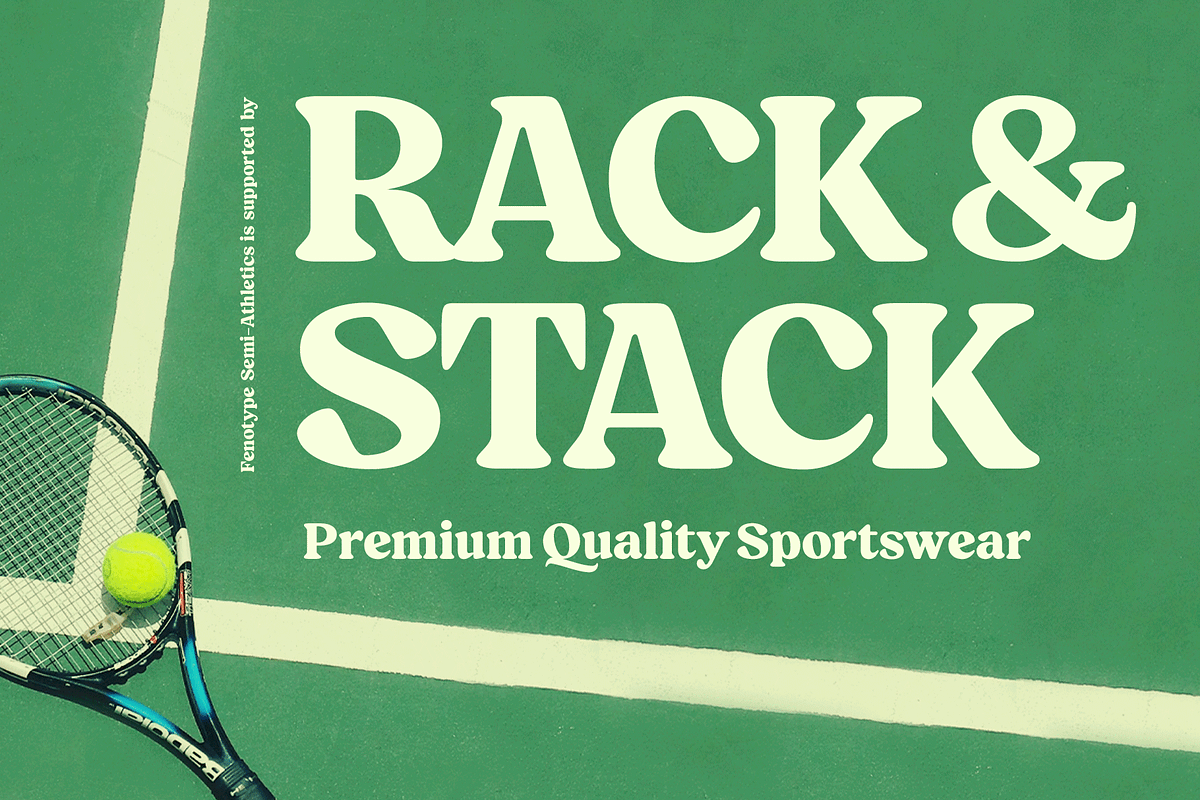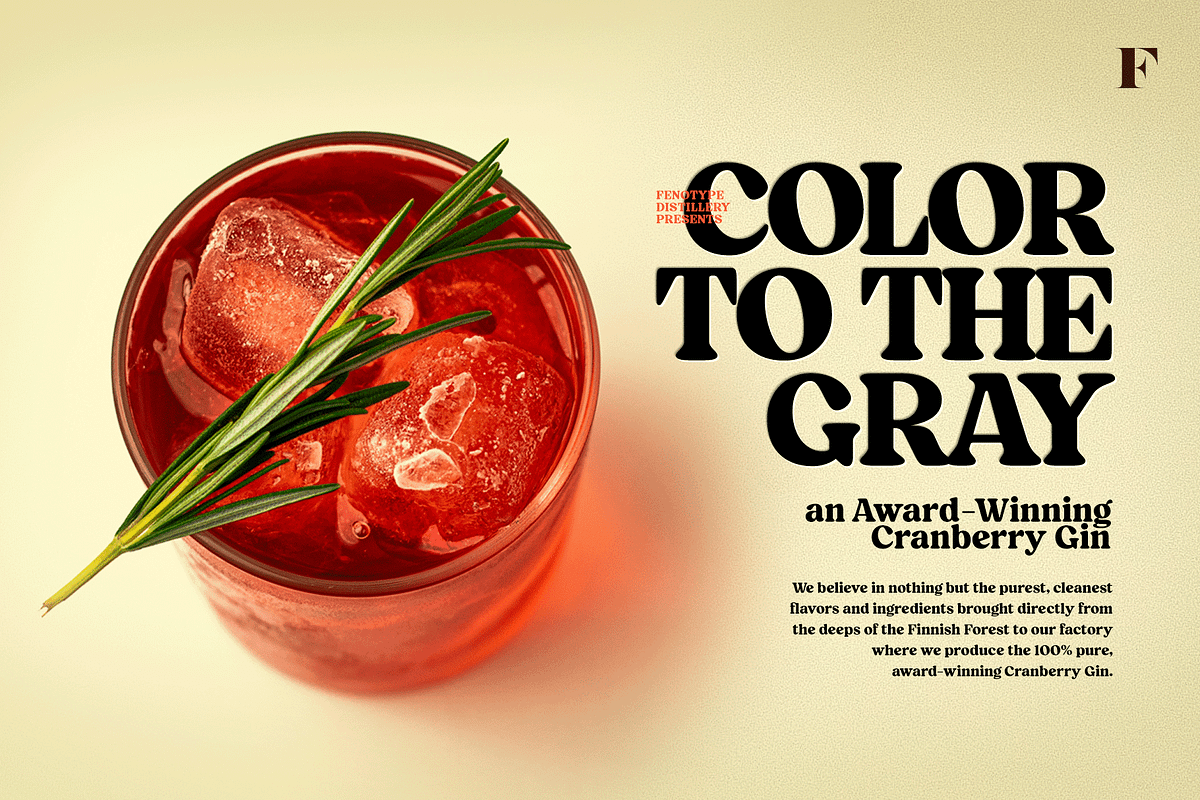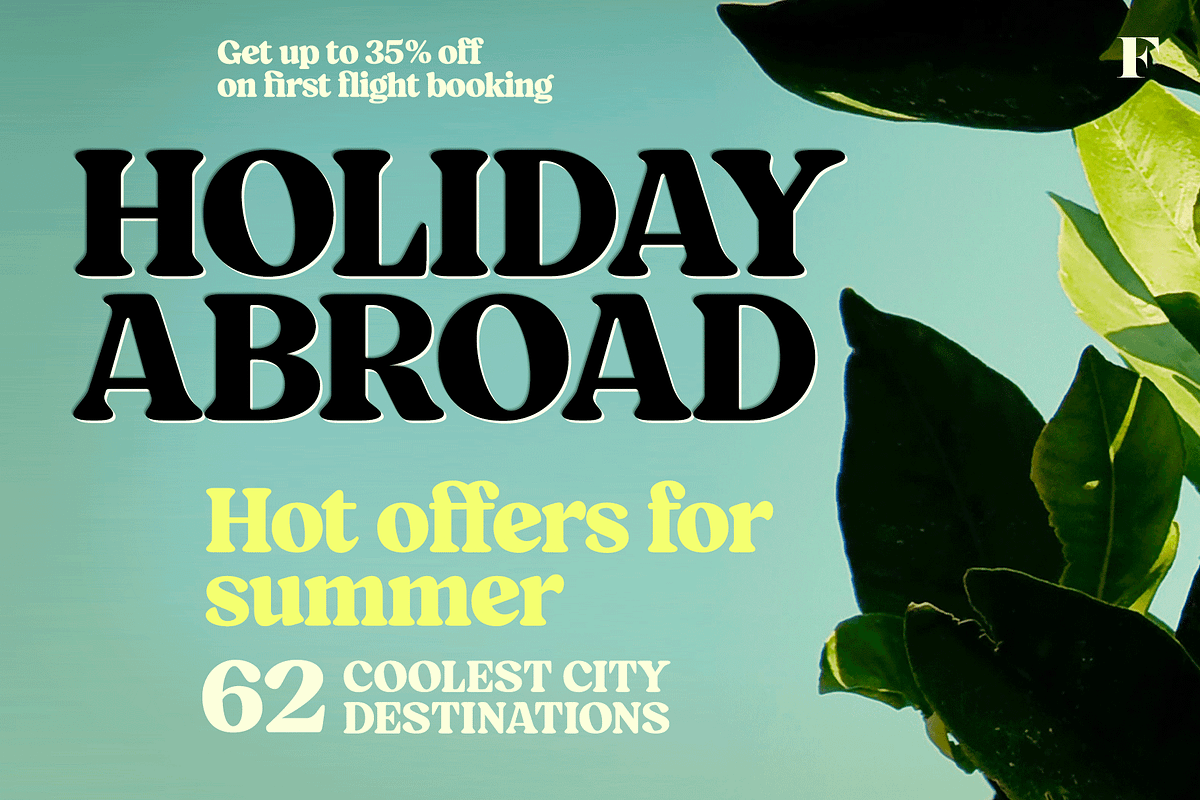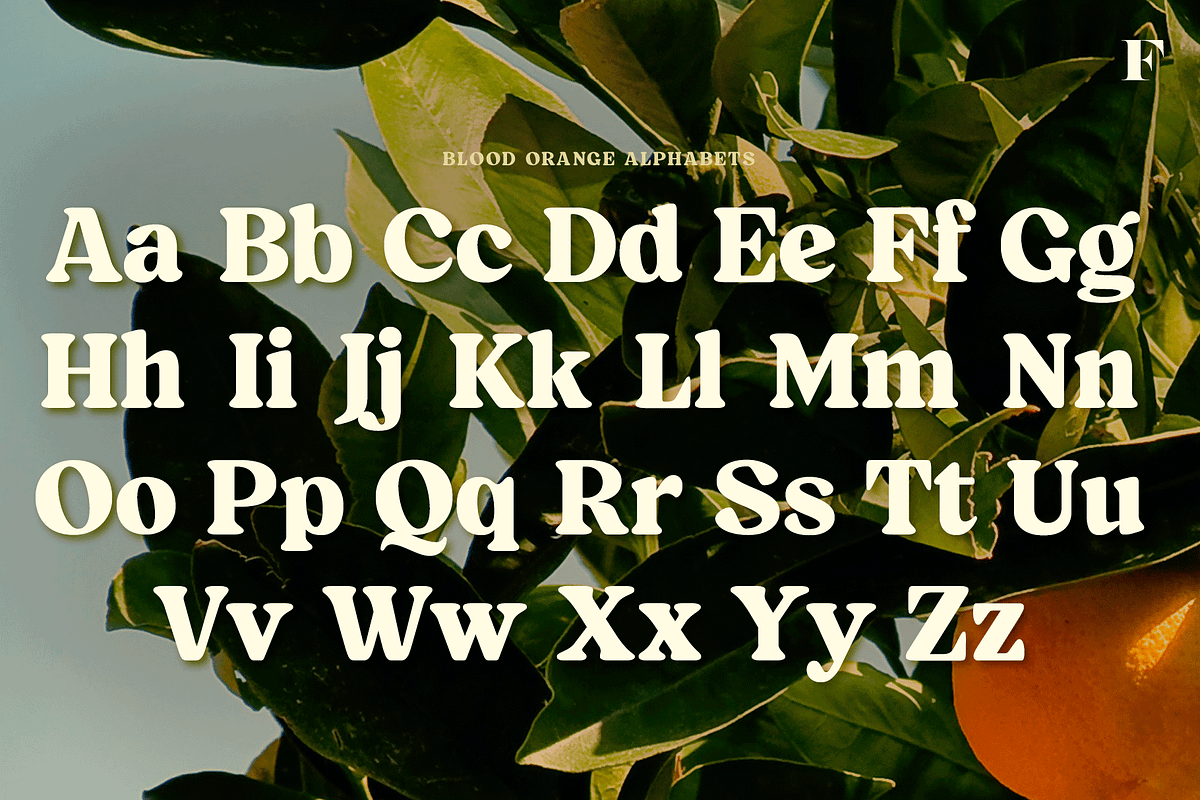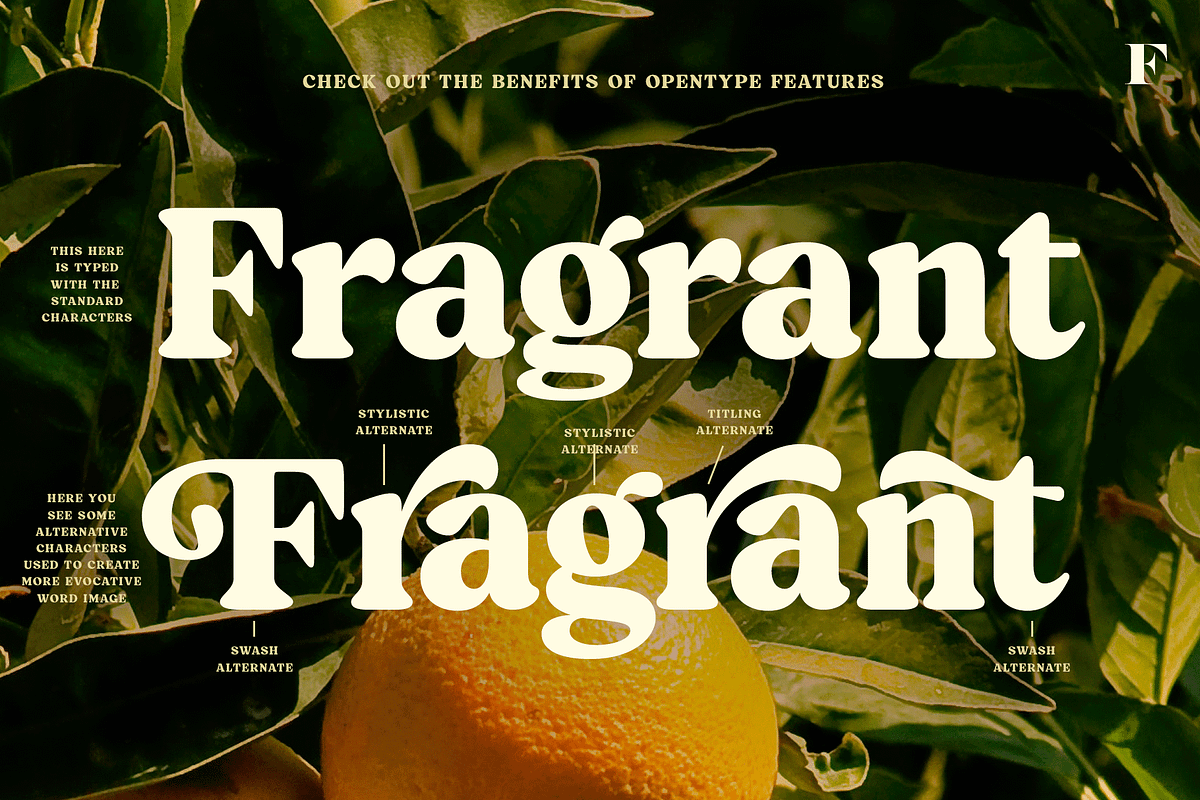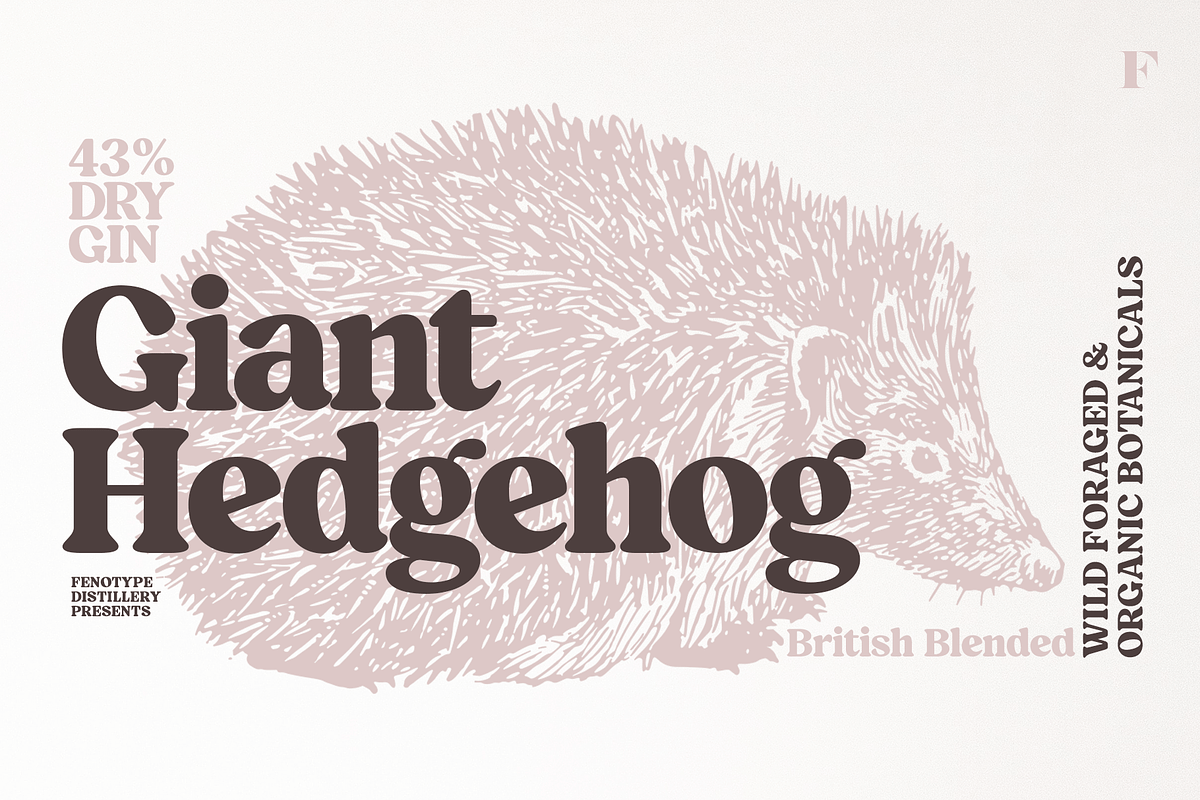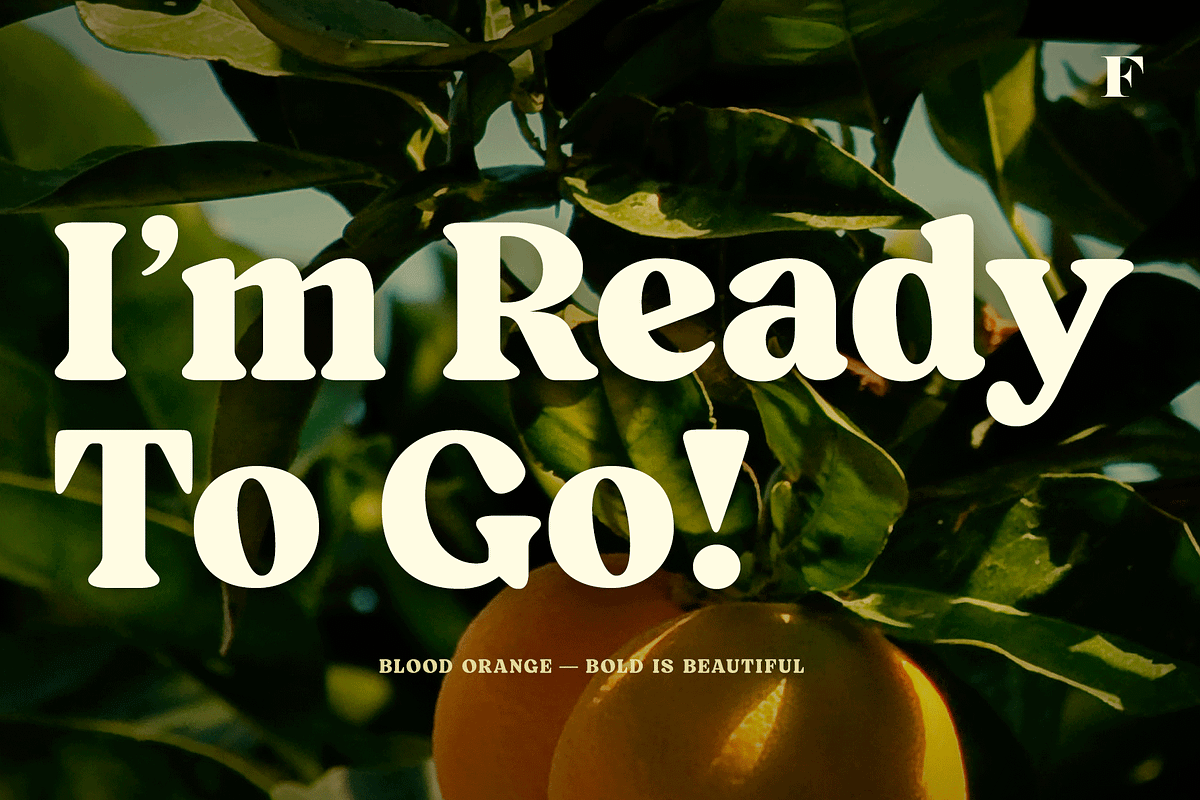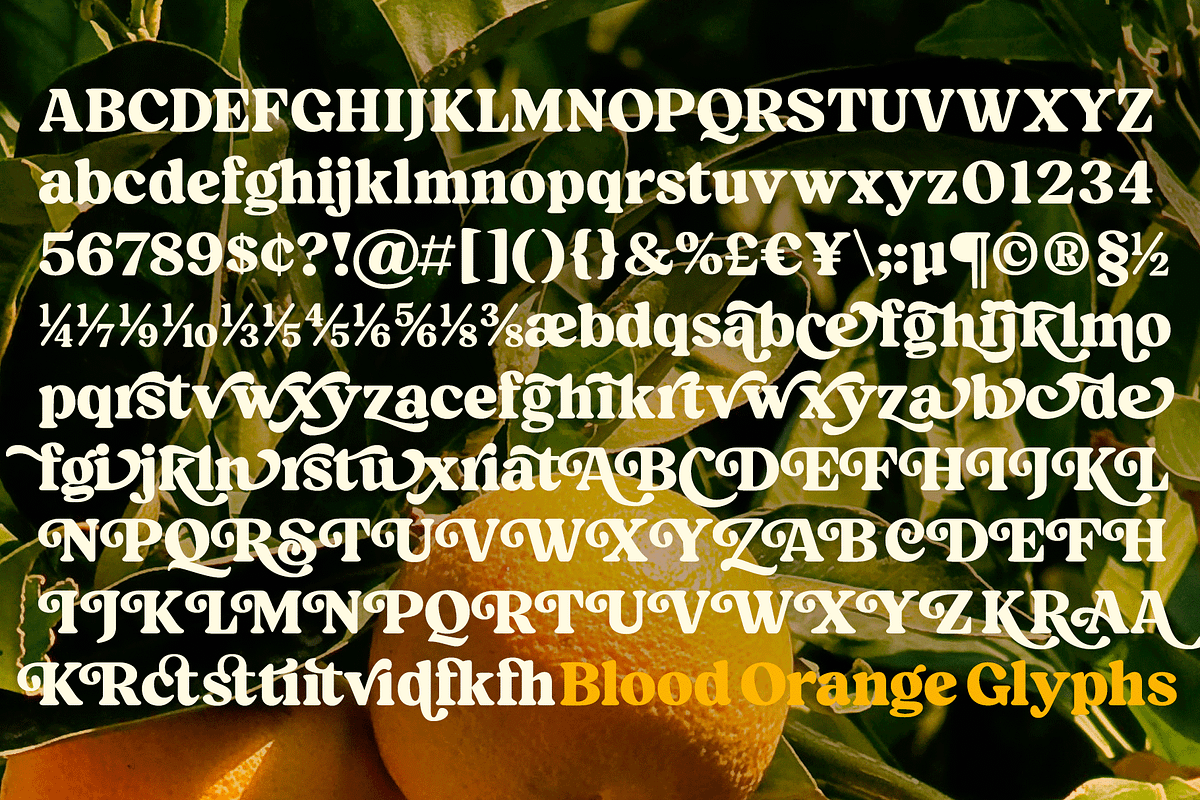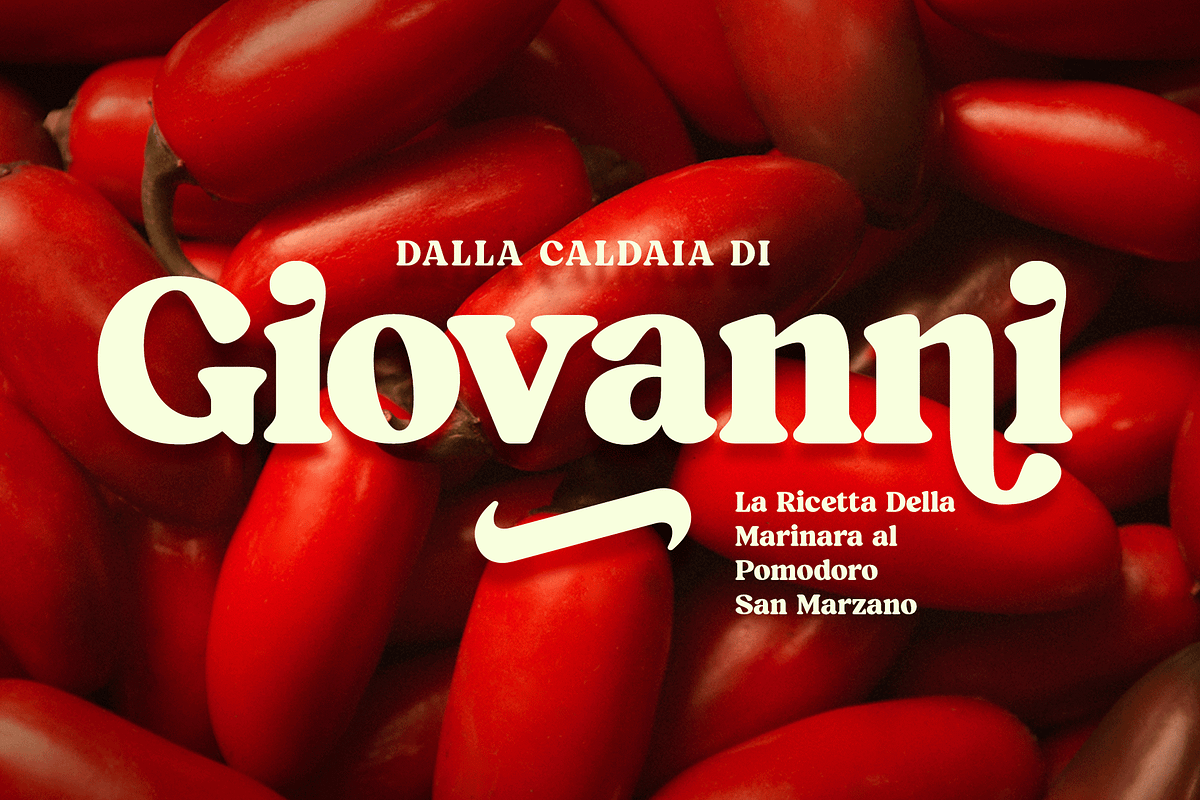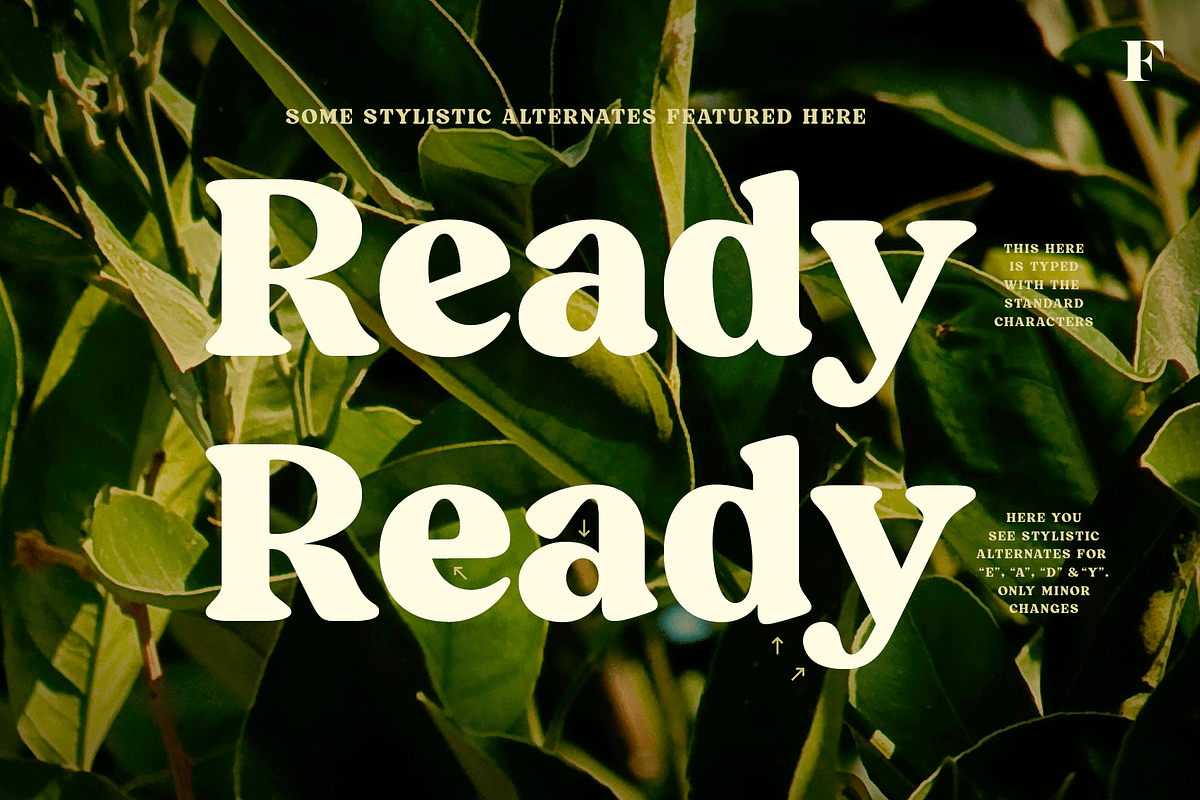
Blood Orange Vintage Serif
If you need to say something weighty, say it with Blood Orange. Blood Orange is a hearty rounded serif font with an easygoing confidence and a delightful nostalgic feeling, without the dusty burden of actual fonts from the last century. Blood Orange works great as a logotype, in magazines, headlines, posters, advertising and packaging. It’s at its best in short sentences since it’s so bold, but can be used for a bit longer text passages too, with some spacing added. As a product of the modern era, Blood Orange is fully equipped with plenty of OpenType goodness: Contextual Alternates and Standard Ligatures do their usual trick in smoothing certain letter combinations, and they’re automatically on. In addition it has a wide range of Discretionary Ligatures, Stylistic, Swash and Titling Alternates that you can trigger on from OpenType controls in any OpenType savvy program, or manually select the suitable variations from the character window. Try these alternates for more eloquent designs, but remember to treat them like you would treat really strong spices: just a bit at a time. See the full range of the alternative glyphs on the specimen posters.
In case you're using a software that doesn't support OpenType -features, you can apply the different versions of the font: Blood Orange Swash, Blood Orange Salt & Blood Orange Titl. They have Swash, SALT and Titling Alternates set as the basic version of the character. You will also find special character Alternates there - if you need the Swedish Å as the Swash version for example, you have it there.